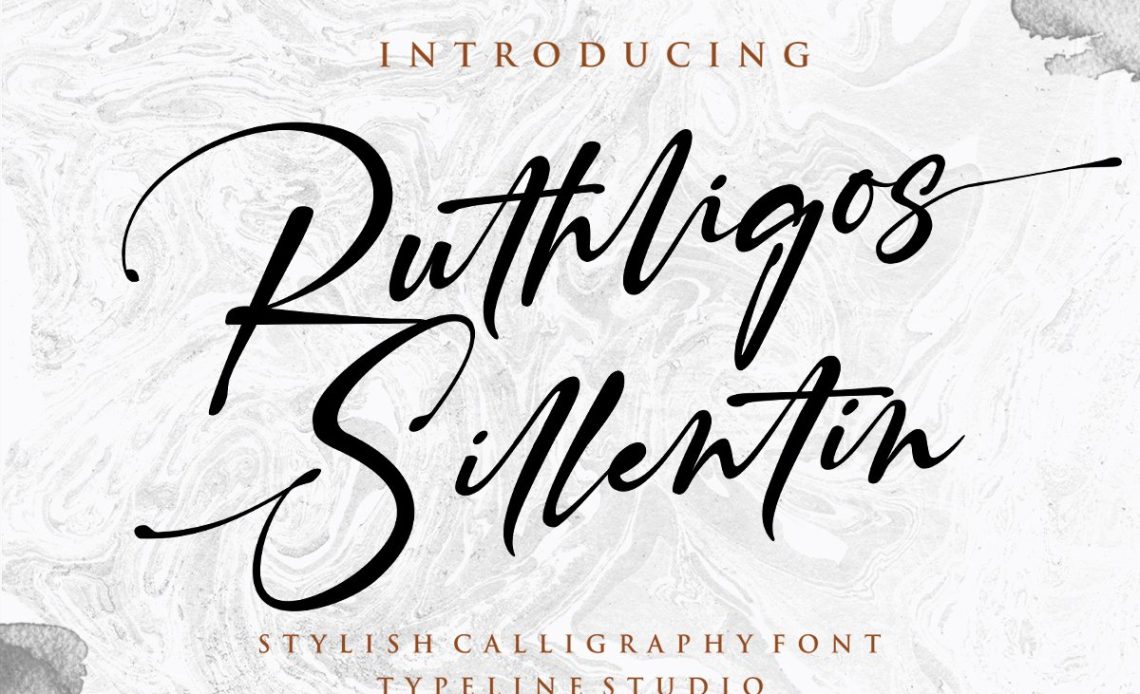
Introducing Ruthligos Font, a stunning modern Signature font designed by yadi setiawan. With its chic pressure and stylish appeal, this font is the perfect choice for photography signatures and watermarks. Whether you're a professional photographer or simply looking to add a personal touch to your photography logo, Ruthligos Font is here to elevate your brand.
What sets Ruthligos Sillentin apart is its elegance and uniqueness. It exudes professionalism and sophistication, making it ideal for creating initial or branding logo signatures. The font includes a full set of beautifully hand-lettered uppercase and lowercase letters, numerals, and a wide range of punctuation marks. Additionally, it features 25 ligatures, adding even more versatility to your designs.
Don't miss out on the opportunity to elevate your photography brand with Ruthligos Font. Its captivating style and extensive features will leave a lasting impression on your audience. Download Ruthligos Sillentin today and unlock a world of creative possibilities.